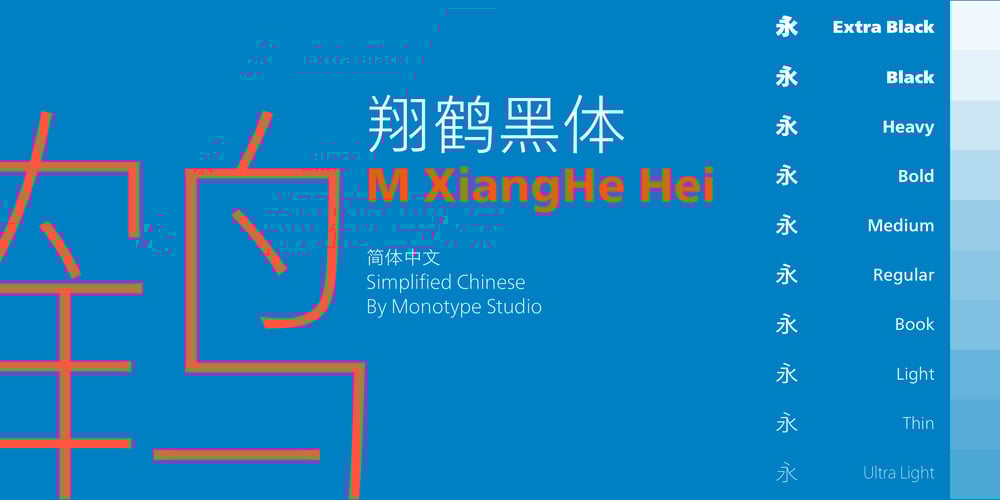
M XiangHe Hei SC Std Font Family was designed by Adrian Frutiger, Akira Kobayashi, Monotype Design Studio and published by Monotype. M XiangHe Hei SC Std contains 10 styles and family package options. The M XiangHe Hei Simplified Chinese typeface merges traditional brush strokes with modern letterforms to carefully balance traditional calligraphy with humanist design. Named for the smooth movements of a flying crane, the M XiangHe Hei typeface is designed to glide across the page, and features strokes that are partly derived from the Kaishu calligraphic style – an everyday script which dates back hundreds of years. M XiangHe Hei SC features Neue Frutiger for its Latin glyphs, and works harmoniously Neue Frutiger World and Monotype’s CJK typefaces: Tazugane Gothic (Japanese) and Seol Sans (Korean). M XiangHe Hei SC is a great choice for global brands using sans serif Latin typefaces looking to maintain their visual identity, and communicate with a consistent tone of voice with Simplified Chinese. The M XiangHe Hei SC Std fonts have over 8,000 glyphs, and support the GB2312 character set for Simplified Chinese.